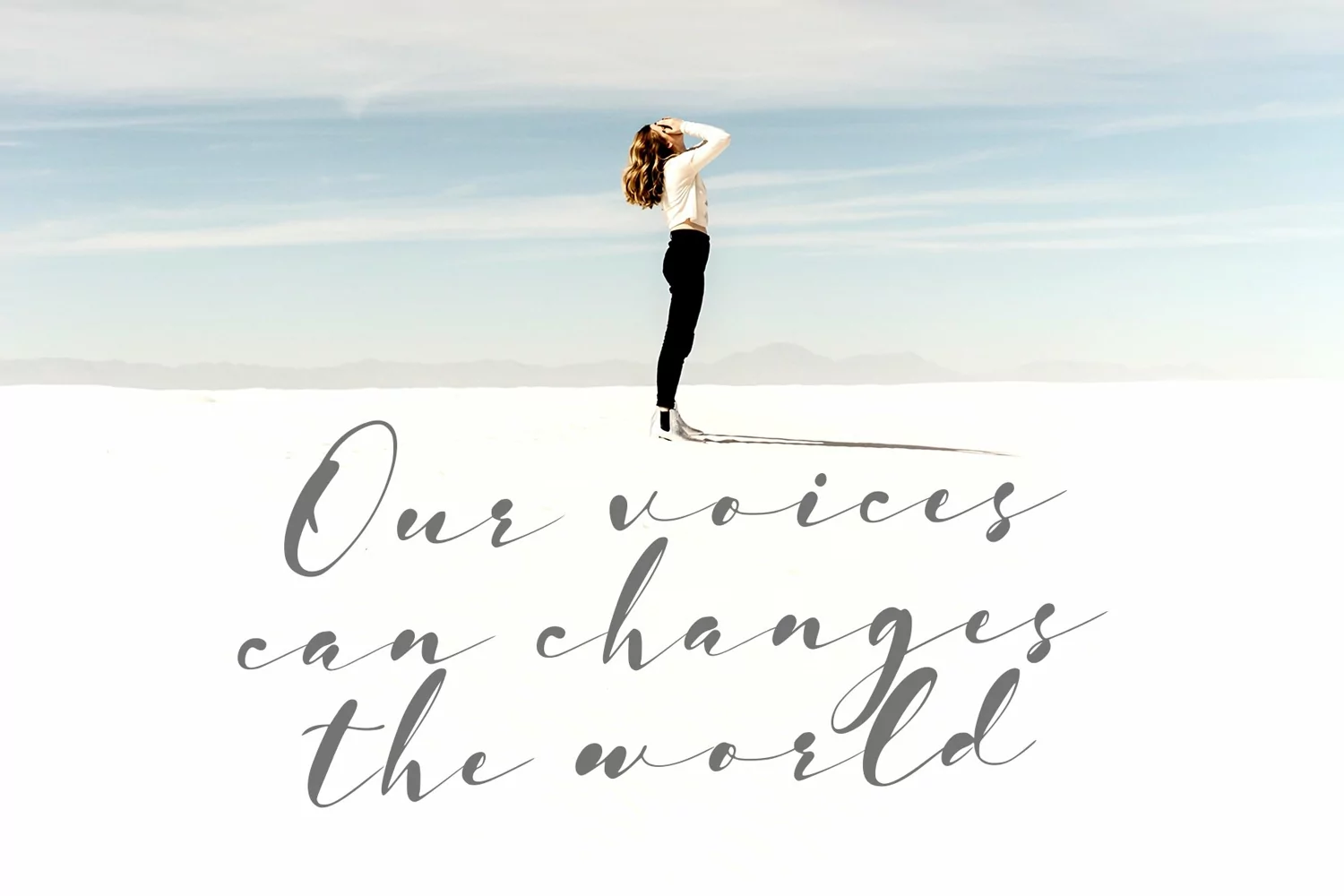
Antiques is modern script calligraphy typeface. It was created to help you designing makes gorgeous logos, writing a quotes poster, wedding invitations, social media posts, and more!